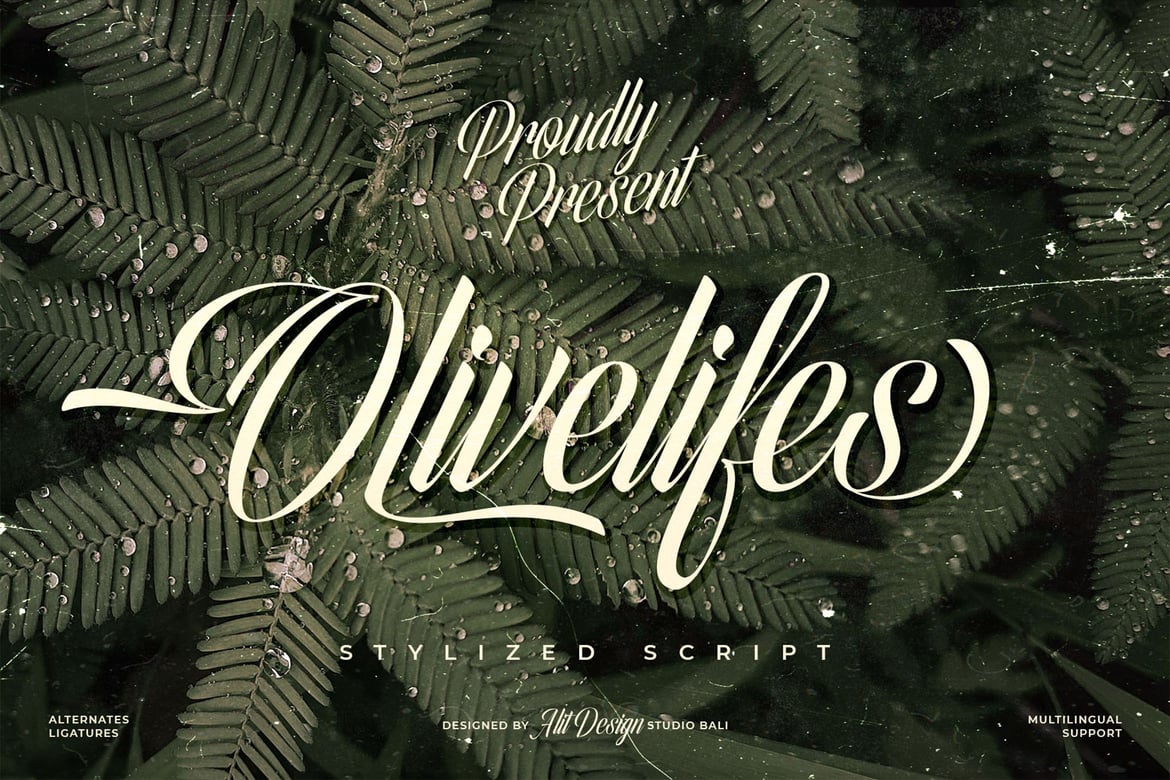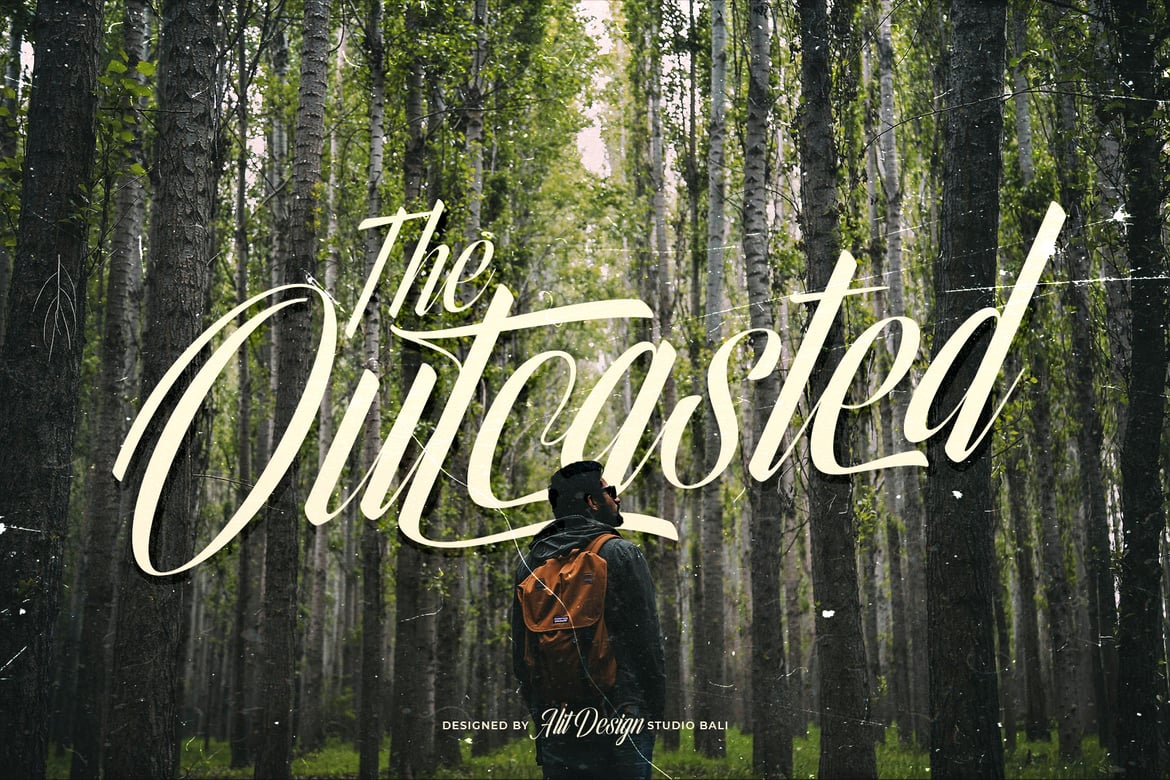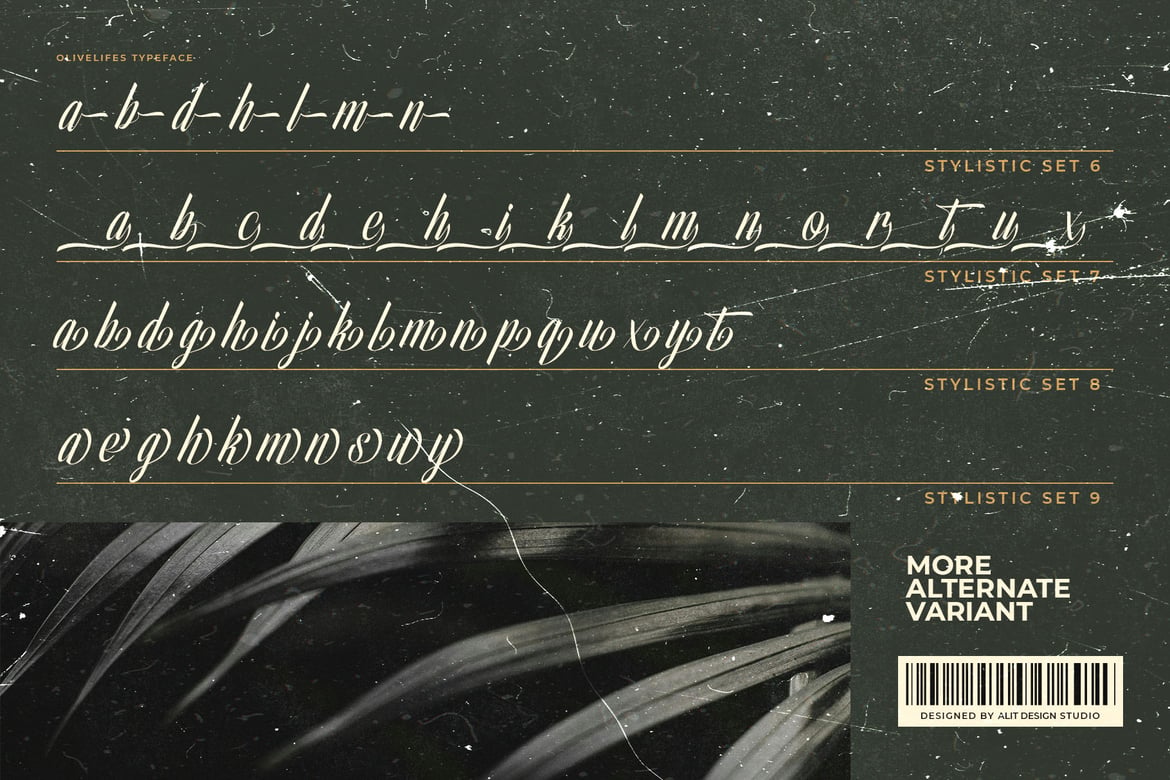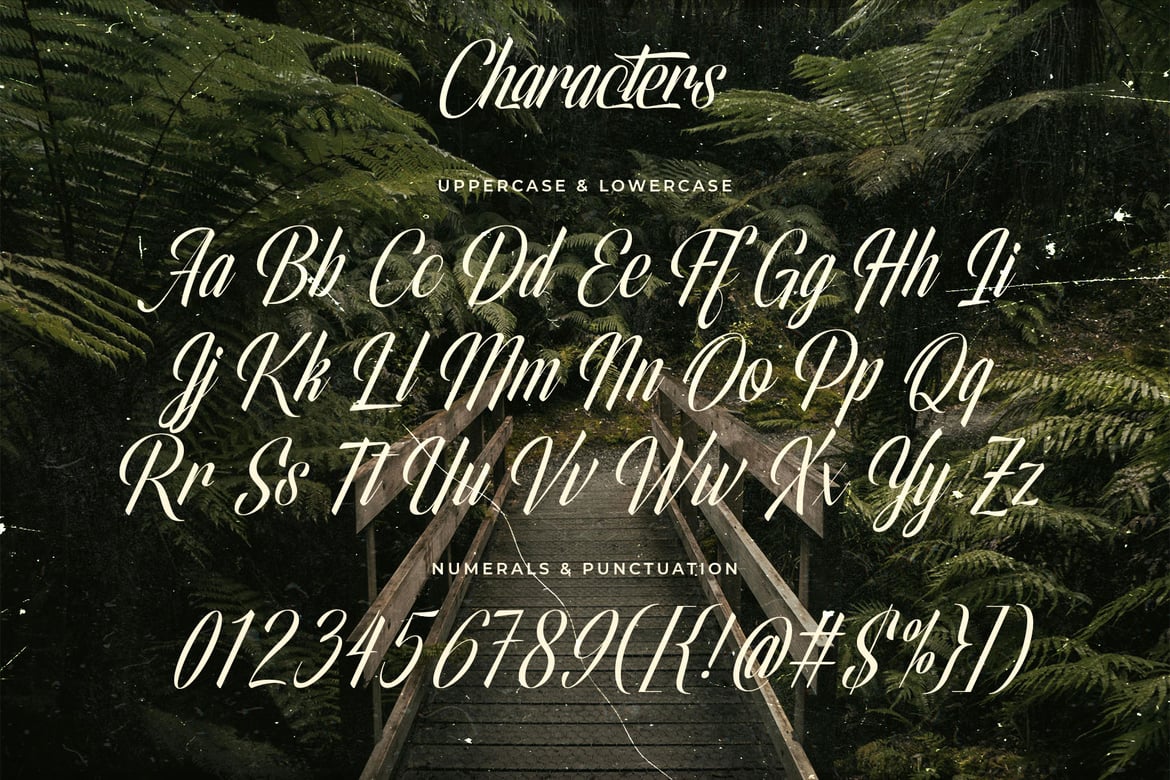
Olivelifes Script Font
Key Features:
* Fierce Script: Bold and striking, Olivelifes Script Font is perfect for making a powerful statement.
* Speedy & Dynamic: Inspired by the swift movement, this font conveys a sense of speed and agility.
* Ligature Magic: Enjoy seamless connections between letters with beautifully crafted ligatures that add a touch of sophistication.
* Elegant Swashes: Enhance your text with graceful swashes, giving a luxurious and stylish finish to your designs.
* Comprehensive Character Set: With a whopping 711 characters, Olivelifes Script Font offers extensive language support and versatile typographic options.
Perfect For: